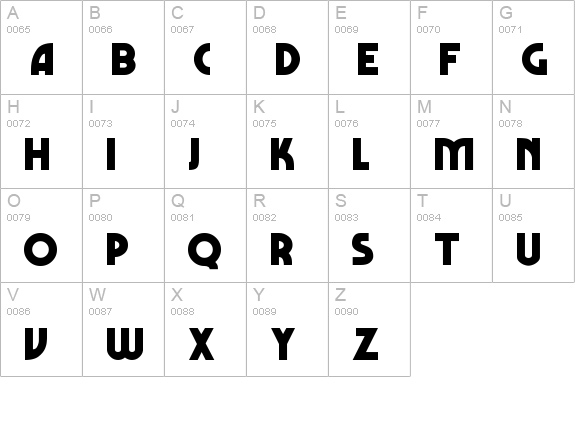
Marbolo-Normal is the standard, neutral variant in the Marbolo typeface family \xE2\x80\x94 well suited to general body text, paragraphs, and standard typographic work.
Marbolo-Normal font is a stunning display font that is sure to captivate any audience. With its sleek and modern design, it effortlessly combines elegance with readability, making it perfect for a wide range of creative projects. The Marbolo-Normal font features clean lines and carefully crafted letterforms, giving it a professional and sophisticated look. Its versatility allows it to be used in various design applications, from branding and advertising to web design and print materials. One of the most appealing aspects of Marbolo-Normal font is that it is free. Yes, you heard that right – this amazing font is freely available to download at FontsMarket.com. This means that designers, artists, and anyone looking to add a touch of class to their work can easily access and use this font without breaking the bank. Whether you're creating a logo for a high-end fashion brand, designing a magazine layout, or crafting eye-catching social media graphics, Marbolo-Normal font is the perfect choice. Its timeless appeal and versatility make it a go-to option for designers seeking a font that effortlessly combines elegance and readability. Download Marbolo-Normal font for free at FontsMarket.com and elevate your design projects to new heights. Join the ranks of satisfied designers who have discovered the beauty and flexibility of this exceptional font. Start creating with Marbolo-Normal font today and let your designs stand out from the crowd.